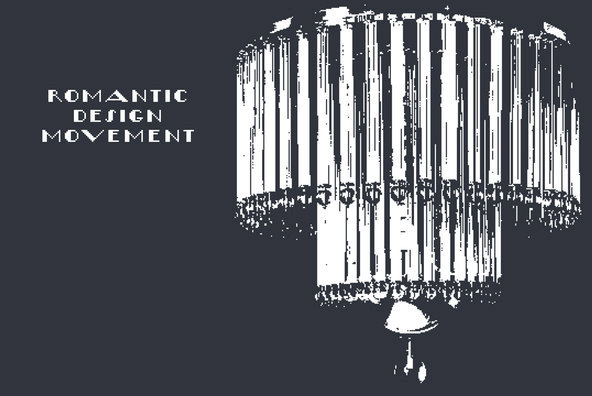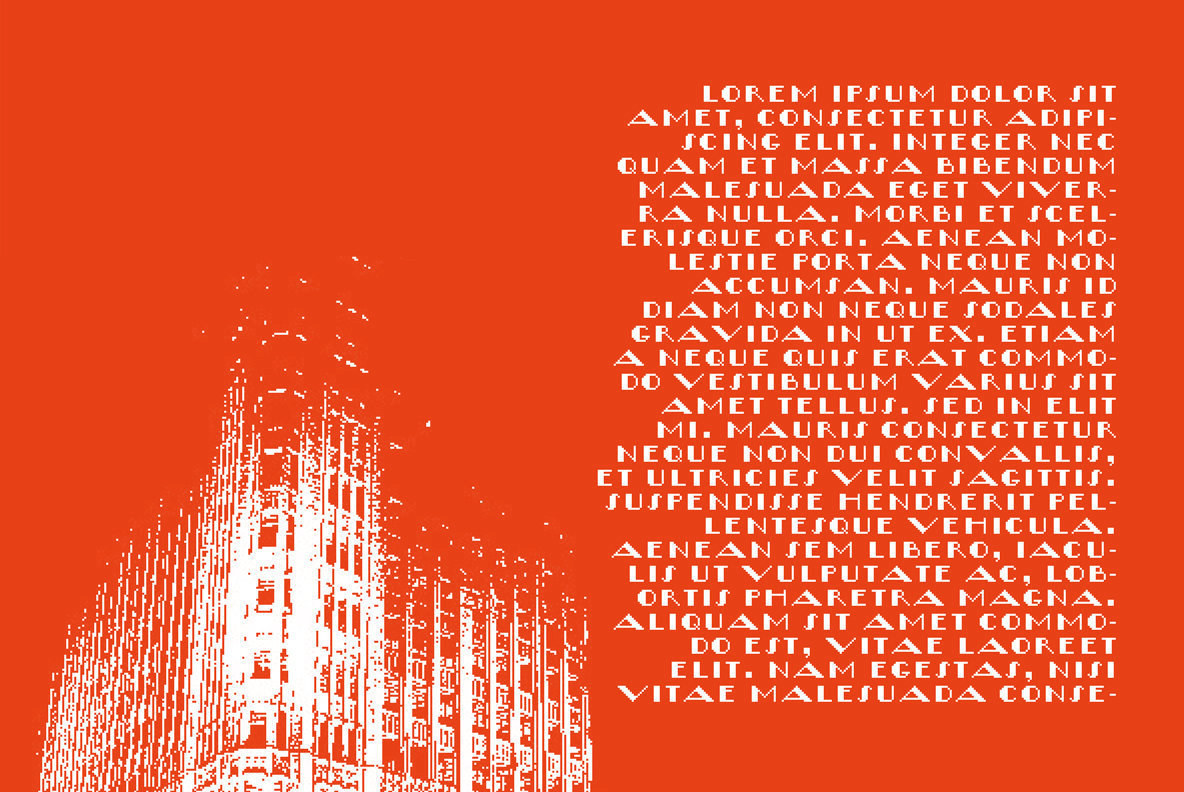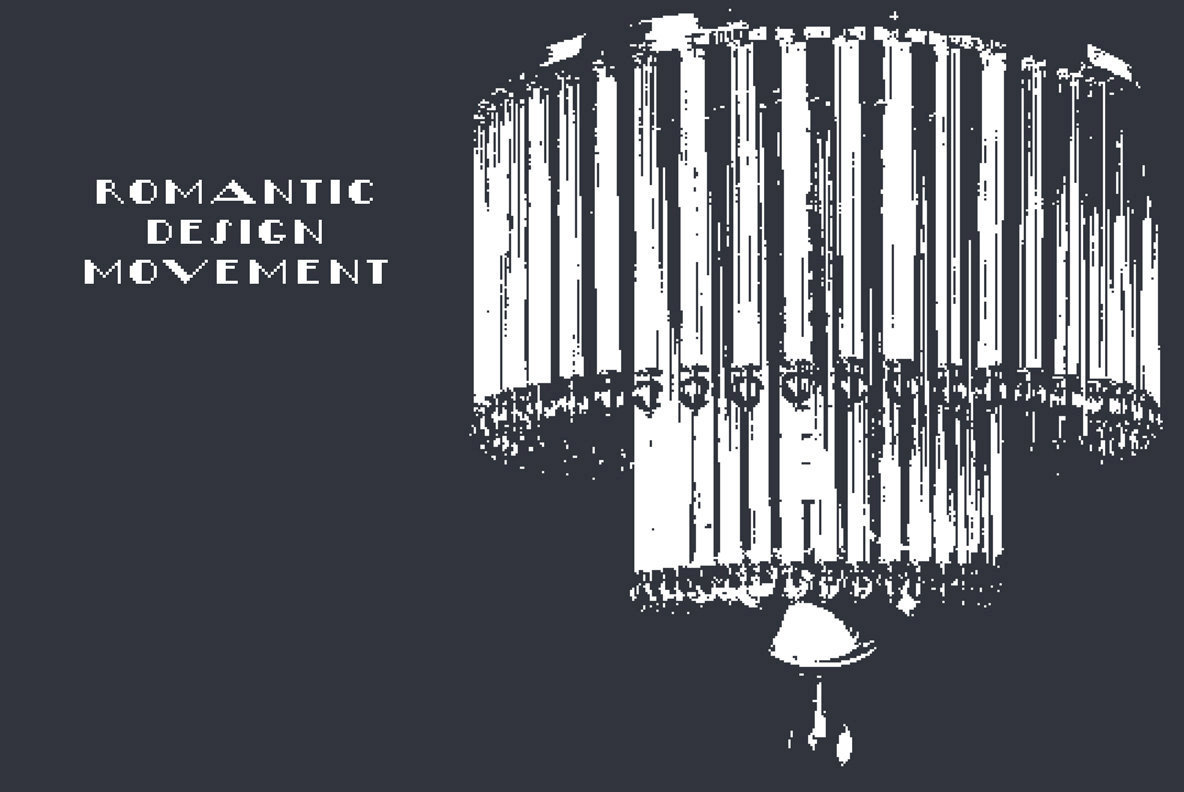
Flat10 ArtDeco
Foundry: Ryoichi Tsunekawa
This 8-bit pixel font is designed with respect for 80s game designers and the pixel font pioneers in middle 90s. Use at size 10 pixels or multiples of 10 and anti-alias off is recommended.